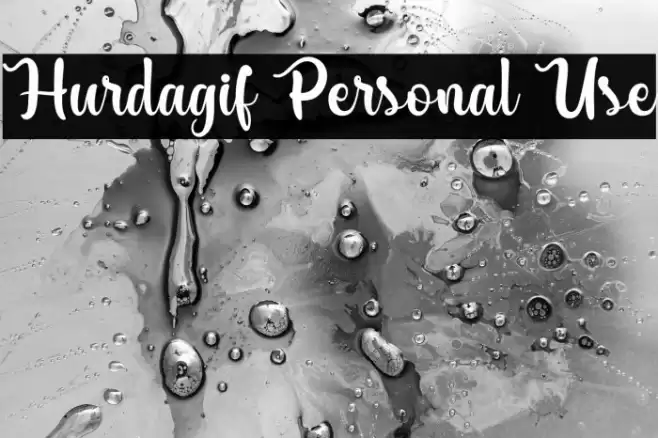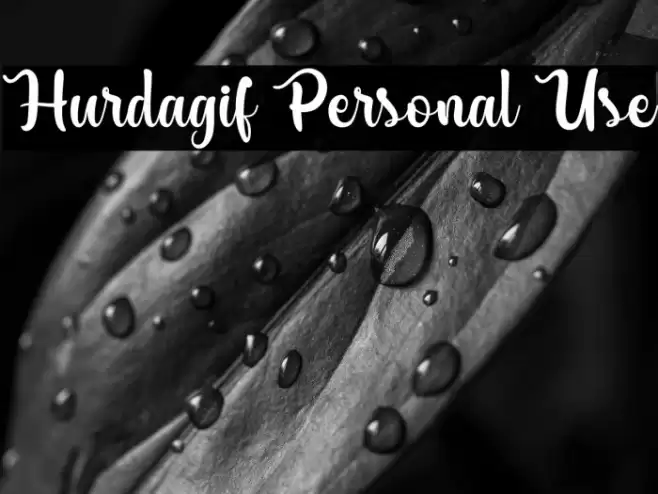
Hurdagif Personal Use Font
Hurdagif Personal Use Description
This font features a bold and expressive script style, characterized by its flowing, cursive letterforms. The uppercase letters are elegantly crafted with sweeping curves and a sense of movement, while the lowercase letters maintain a consistent, smooth flow. The font exudes a sense of creativity and dynamism, making it ideal for projects that require a personal touch. The characters are well-spaced, ensuring readability while maintaining the artistic flair. This font is perfect for designs that aim to capture attention and convey a sense of elegance and style.
A bold, expressive script font with flowing, cursive letterforms from Uncategorized fonts.
- Proposed Projects: Ideal for wedding invitations, branding, greeting cards, and artistic projects.
- Use Case: Logos, Headlines, Invitations